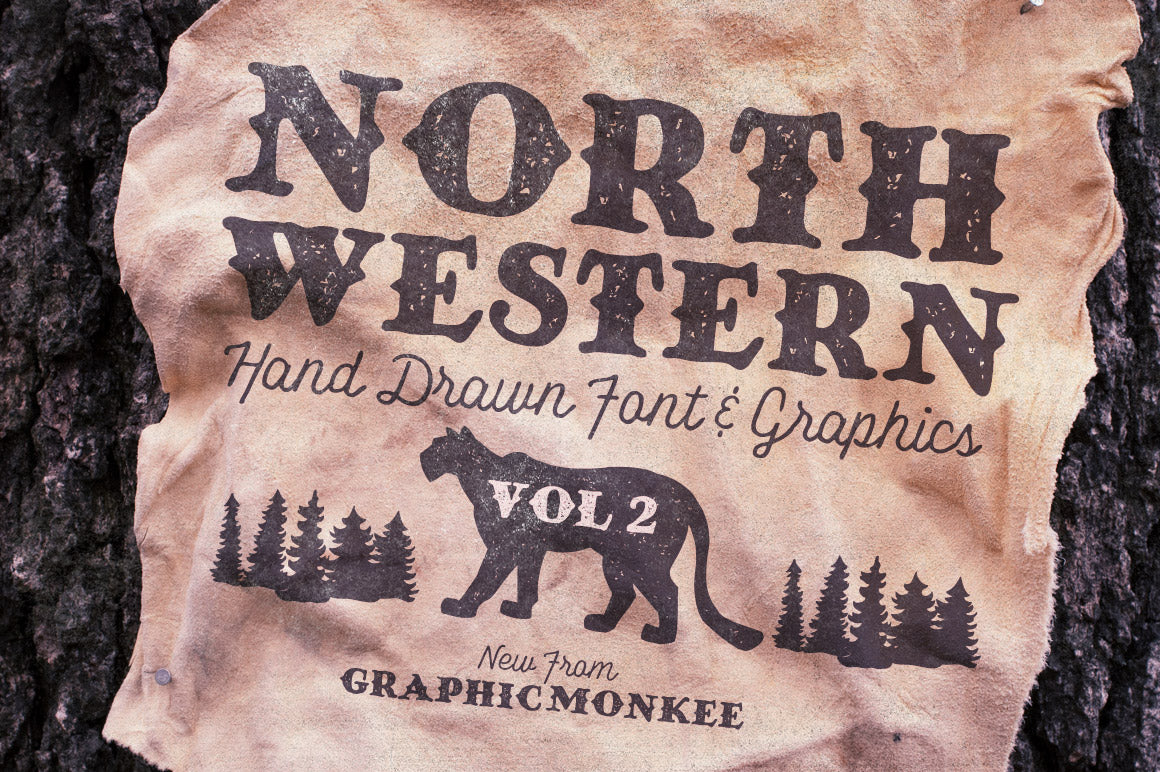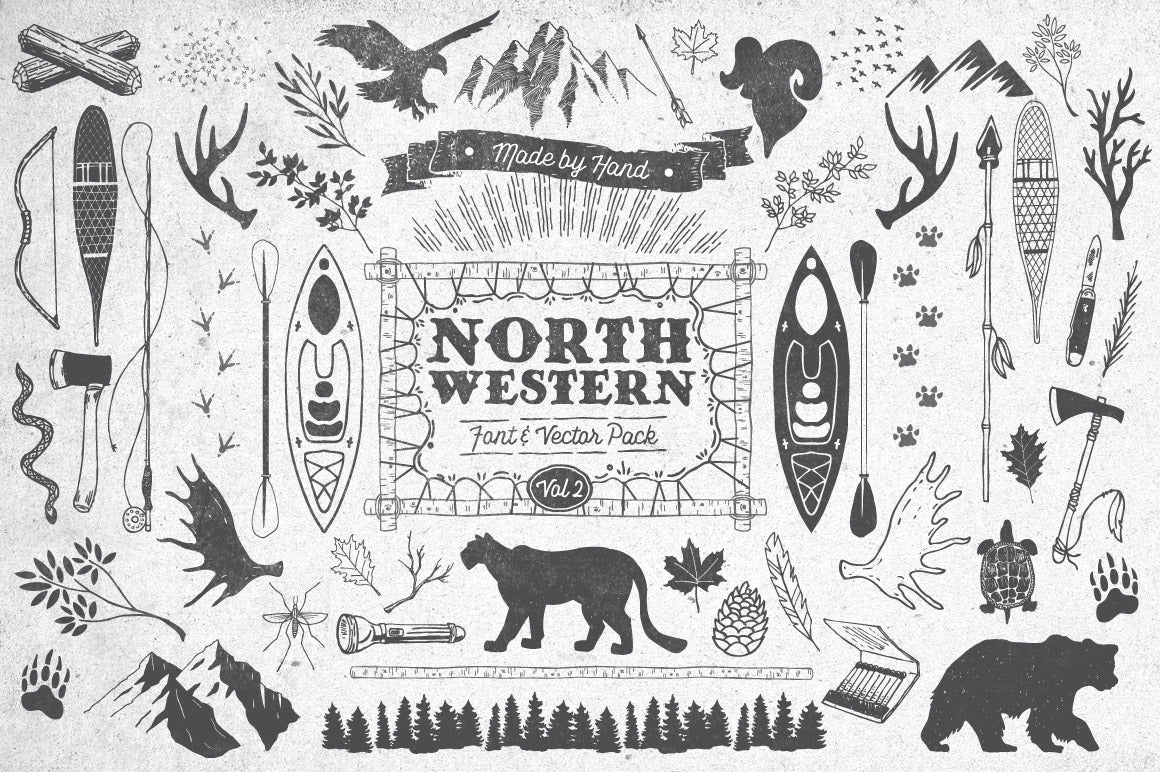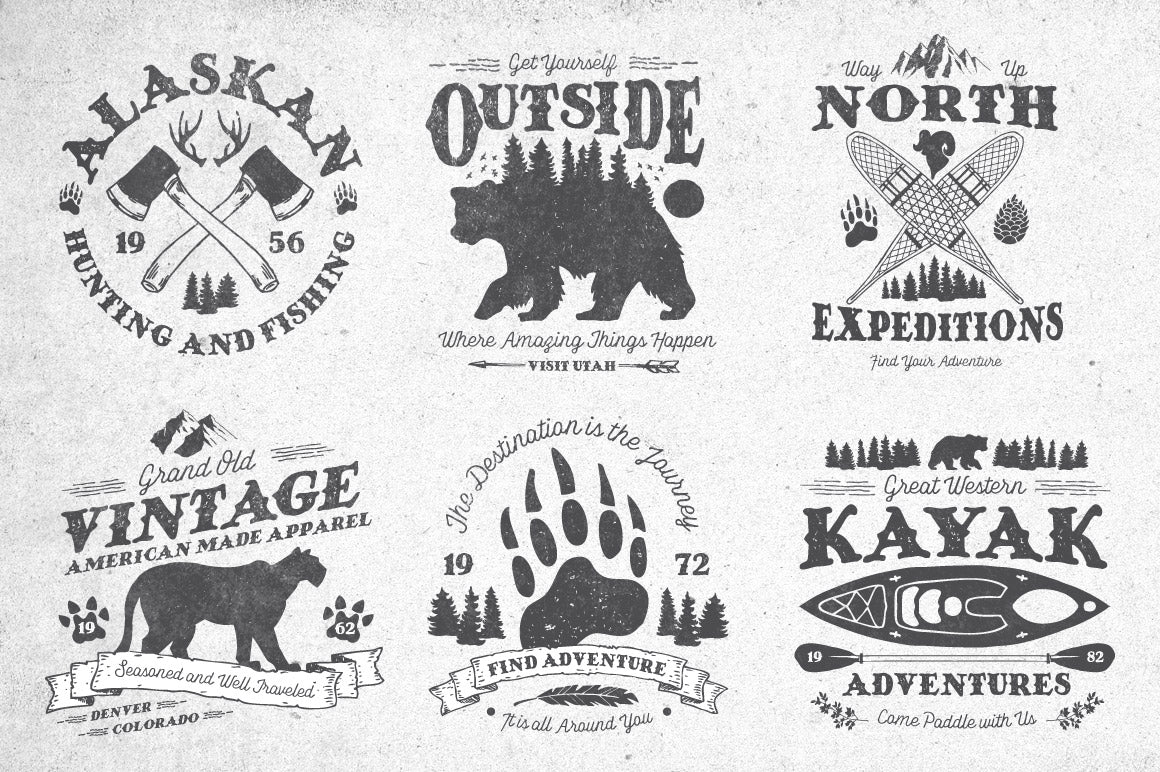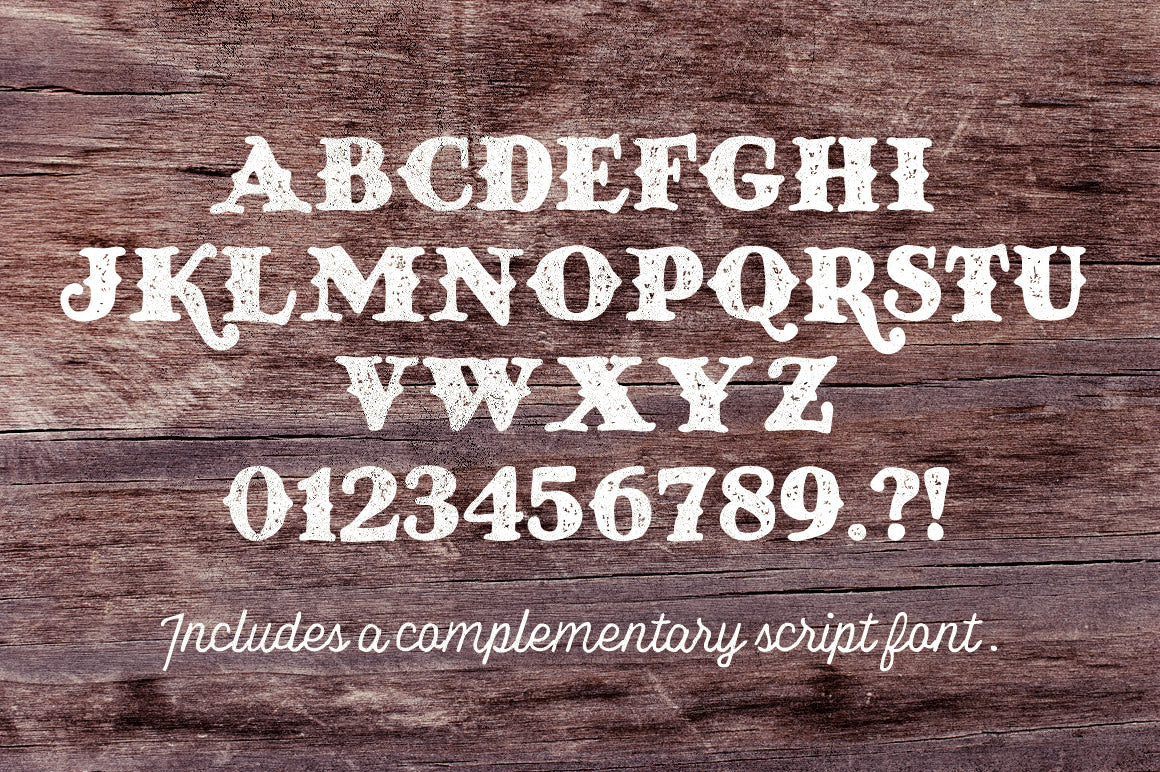
North Western Font + Vectors Vol 2
Following the river to see where it leads, climbing to see what’s over the next peak… This is a collection of fonts and vector graphics inspired by the northwestern region of America. It just doesn’t get any better. Once I sat down and started sketching the set, it became so big that I’m splitting it into 3 volumes. This second set features a fat, hand drawn serif style font, over 50 vector graphics, 6 vintage badges, textures, brushes and more!